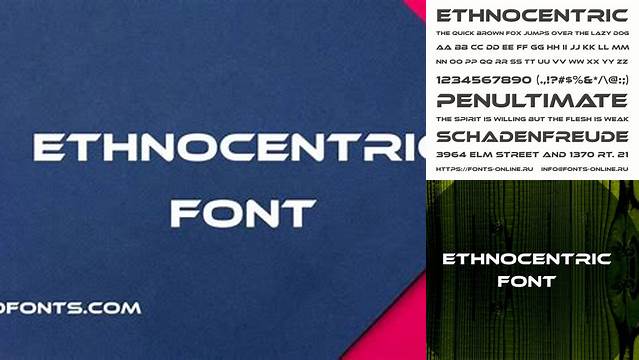
Hey guys! Are you looking for a font that screams futuristic and bold? Look no further! The ethnocentric RG font is a fantastic choice for any designer or creative soul seeking a typeface that commands attention. In this article, we’ll dive deep into what makes this font so special, where you can find an ethnocentric RG font free download, and how to use it effectively in your projects. We will explore everything you need to know about this unique typeface, ensuring you can confidently integrate it into your designs. So, buckle up and let’s explore the world of Ethnocentric RG!
What is Ethnocentric RG Font?
When you're thinking about ethnocentric RG font, it's crucial to understand its core characteristics. This font is instantly recognizable by its sharp, angular lines and a decidedly geometric design. Think of it as the typography equivalent of a sleek, futuristic sports car. Ethnocentric RG exudes a sense of technological advancement and modern sophistication, making it a go-to choice for projects that need to convey innovation and cutting-edge vibes. The sharp, clean lines give it a mechanical feel, almost as if it were designed by robots for robots (in a good way, of course!). It’s this unique blend of sharpness and geometry that sets it apart from more traditional fonts. Its design philosophy revolves around making a statement. Ethnocentric RG isn't a font that blends into the background; it demands attention and makes its presence known. It's the kind of typeface that says, "Hey, look at me!"—perfect for when you need your message to stand out. Ethnocentric RG is more than just a font; it's a visual statement. Its bold, angular forms command attention, making it ideal for headlines, logos, and any design element that needs to make a strong impact. This font’s design draws inspiration from futuristic and technological themes, lending a cutting-edge feel to any project. Whether you're working on a website, poster, or branding project, Ethnocentric RG can add a touch of modern sophistication. Its distinctive character shapes ensure readability while maintaining a unique aesthetic. When used effectively, Ethnocentric RG can transform a design from ordinary to extraordinary, adding a layer of visual interest that captivates the audience. The font’s inherent boldness and distinctiveness make it a favorite among designers aiming to create memorable and impactful visuals. In essence, Ethnocentric RG is a font that embodies modernity and innovation, making it a powerful tool in any designer's arsenal.
Key Characteristics of Ethnocentric RG Font
Let's break down the key characteristics of the ethnocentric RG font a bit further. First off, the geometric construction is super important. Each letter is meticulously crafted with precise angles and lines, giving it that mechanical, almost robotic feel we mentioned earlier. This precision makes it incredibly clean and legible, even in larger blocks of text. The absence of curves is another defining feature. Most fonts incorporate curves to soften their appearance, but Ethnocentric RG goes against the grain, embracing straight lines and sharp angles. This lack of curvature contributes significantly to its modern and futuristic aesthetic. Its angular design is also very prominent. The sharp, pointy edges add a sense of dynamism and energy to the typeface. It's like the font is constantly moving forward, which is perfect for conveying a sense of progress and innovation. Finally, its bold weight is essential to its identity. Ethnocentric RG is not a subtle font; it's designed to be noticed. The thick strokes and substantial letterforms ensure that it stands out, even in a crowded design. When you combine all these characteristics – geometric construction, absence of curves, angular design, and bold weight – you get a font that is undeniably modern, futuristic, and attention-grabbing. It's a perfect choice when you need your message to make a strong visual impact.
How to Use Ethnocentric RG Font in Your Projects
Alright, guys, you've successfully snagged your ethnocentric RG font free download – awesome! Now comes the fun part: putting it to work. But before you go wild and slap it on everything, let's talk about how to use this font effectively. Ethnocentric RG, with its bold and futuristic vibe, is a powerhouse when used correctly. However, like any strong design element, it can overpower a project if not handled with care. So, let's dive into some tips and best practices for incorporating Ethnocentric RG into your designs. Think of this font as a statement piece – it's not meant to be a wallflower. It's the kind of typeface that demands attention, so you need to use it in a way that enhances your message without overwhelming it. Knowing where and how to deploy this font can make all the difference in creating a visually striking and cohesive design. We'll cover everything from suitable applications to pairing suggestions, ensuring you can make the most of this unique typeface.
Best Applications for Ethnocentric RG Font
When considering the best applications for the ethnocentric RG font, think about projects that need a strong, modern, and futuristic feel. This font excels in areas where you want to convey innovation, technology, and a cutting-edge aesthetic. Logos are a prime example. The bold, geometric nature of Ethnocentric RG makes it an excellent choice for creating memorable and impactful brand identities. It’s particularly well-suited for tech companies, gaming brands, or any business that wants to project a forward-thinking image. Headlines and titles are another area where Ethnocentric RG shines. Its assertive presence instantly grabs attention, making it ideal for website headers, posters, and magazine covers. Just imagine a striking headline in Ethnocentric RG against a sleek background – it’s a surefire way to make a statement. Posters and flyers for events or products can also benefit from this font's distinctive style. Whether you're promoting a tech conference, a music festival, or a new gadget, Ethnocentric RG can add a touch of visual excitement and modernity. Web design is another fantastic application. Using Ethnocentric RG for headings and navigation elements can give your website a clean, contemporary look. However, it's essential to use it sparingly to maintain readability and avoid overwhelming the user. Gaming interfaces and graphics are a natural fit for this font. Its futuristic aesthetic aligns perfectly with the gaming world, making it a popular choice for in-game text, menus, and promotional materials. Think of those sci-fi games with sleek, angular interfaces – Ethnocentric RG would feel right at home. In general, any project that needs to convey a sense of modernity, technology, or bold creativity can benefit from the Ethnocentric RG font. Just remember to use it strategically and in balance with other design elements to achieve the best results.
Font Pairing Suggestions for Ethnocentric RG
Choosing the right font pairings is crucial when working with a distinctive typeface like ethnocentric RG font. You want to select fonts that complement its strong personality without clashing or competing for attention. The goal is to create a harmonious visual hierarchy that enhances the overall design. So, let's explore some excellent font pairing options that will make your Ethnocentric RG designs truly shine. One classic approach is to pair a bold, geometric font like Ethnocentric RG with a clean, minimalist sans-serif. This creates a balanced contrast that's both modern and readable. Think of pairing it with something like Open Sans, Lato, or Roboto. These fonts are neutral enough to let Ethnocentric RG take center stage while still providing a solid foundation for body text and other elements. Another fantastic option is to pair Ethnocentric RG with a lighter weight version of a geometric sans-serif. This creates a cohesive look while maintaining visual interest. For example, you could use Ethnocentric RG for headlines and a lighter font like Montserrat Light or Raleway Thin for body text. This approach keeps the overall aesthetic consistent while ensuring readability. If you want to add a touch of elegance, consider pairing Ethnocentric RG with a simple serif font for smaller text elements. A font like Merriweather or Lora can provide a subtle contrast that adds sophistication without overpowering the design. Just be sure to use the serif font sparingly to avoid visual clutter. For a more unconventional approach, you can pair Ethnocentric RG with a handwritten or script font in moderation. This can create an interesting juxtaposition, but it's essential to ensure the two fonts don't clash. A delicate script font used sparingly for a tagline or accent can add a touch of personality to the design. Ultimately, the key to successful font pairing is experimentation and balance. Try out different combinations and see what works best for your specific project. Just remember to keep readability in mind and avoid using too many different fonts in a single design. By carefully selecting your font pairings, you can elevate your Ethnocentric RG designs to the next level.
Conclusion: Unleash Your Design Potential with Ethnocentric RG
So there you have it, guys! We've journeyed through the world of ethnocentric RG font, exploring its unique characteristics, where to find an ethnocentric RG font free download, and how to use it effectively in your projects. This font is a powerful tool for any designer looking to make a bold statement. Its futuristic aesthetic and geometric precision make it perfect for logos, headlines, posters, and more. But remember, with great power comes great responsibility. Use Ethnocentric RG strategically and pair it wisely with other fonts to create designs that are both striking and harmonious. By following the tips and guidelines we've discussed, you can confidently incorporate this font into your creative arsenal and unleash your design potential. Ethnocentric RG is more than just a font; it's a statement of modernity and innovation. When used thoughtfully, it can elevate your designs and help you communicate your message with clarity and impact. So go ahead, experiment, and have fun with this fantastic typeface. Happy designing!